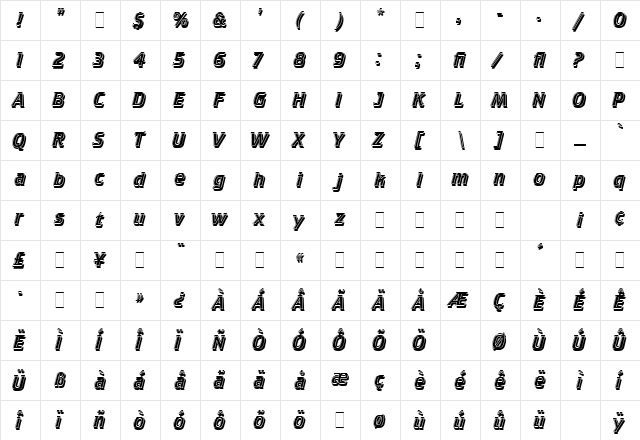
Crillee Italic Inline Shad LET Plain
Design Context for Crillee Italic Inline Shad LET Typeface
Crillee Italic Inline Shad LET is built around its visual character rather than neutral utility — its distinctive forms are designed to make an impression at display sizes. Its italic angle brings a sense of urgency and motion to the letterforms.
Font Pairing: Pair with a clean neutral sans-serif for body copy to let Crillee Italic Inline Shad LET's character lead without overwhelming the composition.
Pro Tip: Use Crillee Italic Inline Shad LET exclusively at display sizes — it was designed to be seen, not read at length. Let a neutral companion handle body copy.